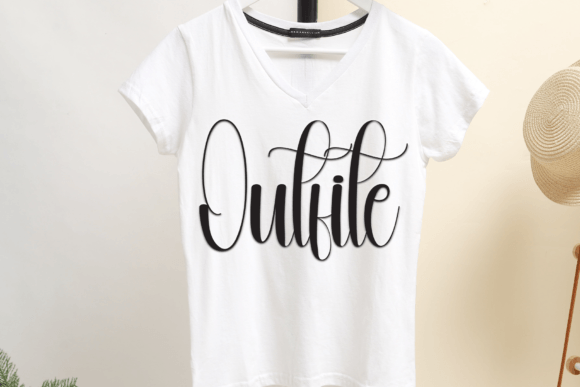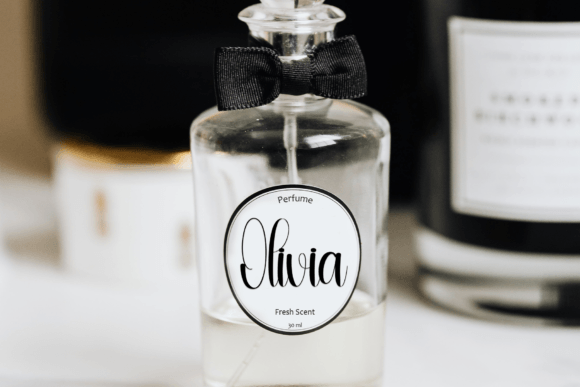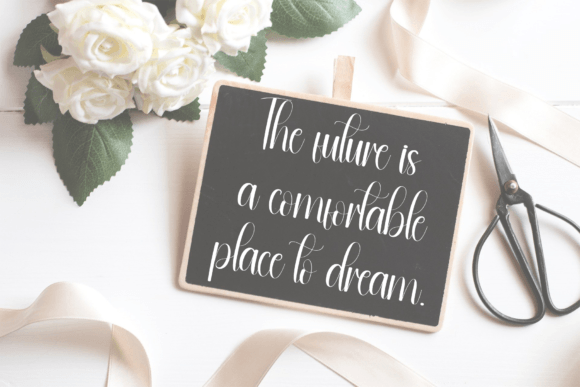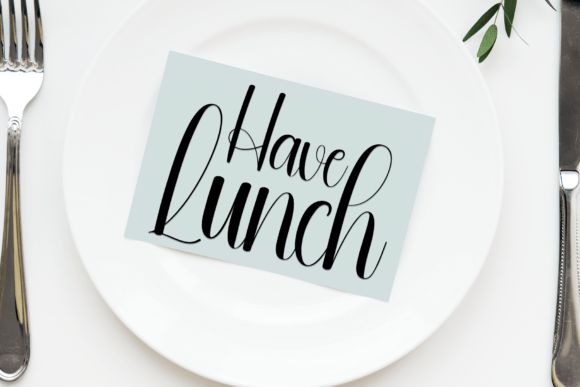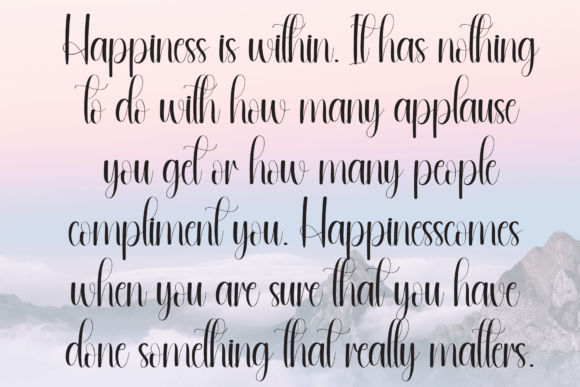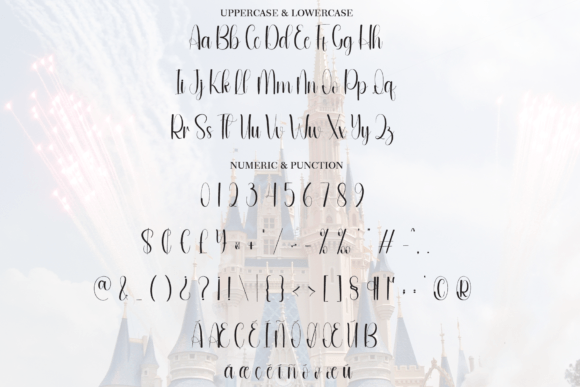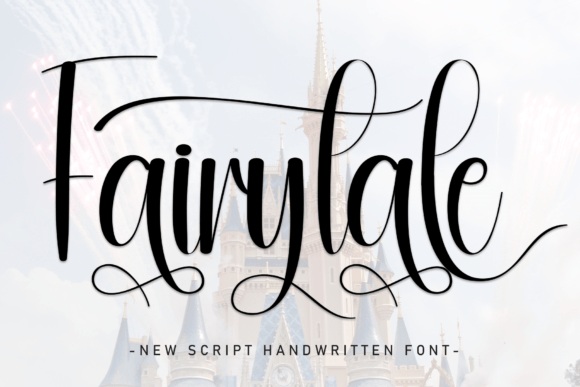
Introducing Fairytale Font: The Sweet and Friendly Handwritten Font for Your Design Needs
Are you a designer or crafter looking for a font that can add a touch of magic to your creations? Look no further than Fairytale Font, a sweet and friendly handwritten font that’s perfect for a variety of design projects. In this article, we’ll take a closer look at Fairytale Font, its features, and how you can use it to elevate your designs.
What is Fairytale Font?
Fairytale Font is a beautiful, handwritten font that’s designed to bring a sense of whimsy and wonder to your designs. It’s a fresh and casual font that’s ideal for writing wedding invitations, cards, or any other design that might need a lovely touch. With its elegant and flowing script, Fairytale Font is sure to capture the hearts of your audience and leave a lasting impression.
Key Features of Fairytale Font
So, what makes Fairytale Font so special? Here are some of its key features:
• Sweet and Friendly Design: Fairytale Font has a sweet and friendly design that’s perfect for creating designs that are approachable and inviting.
• Handwritten Style: This font has a beautiful, handwritten style that’s perfect for adding a personal touch to your designs.
• Fresh and Casual: Fairytale Font is a fresh and casual font that’s ideal for designs that need a playful and relaxed feel.
• Highly Readable: Despite its elegant and flowing script, Fairytale Font is highly readable, making it perfect for body text and headings.
Use Cases for Fairytale Font
So, how can you use Fairytale Font in your designs? Here are some use cases to get you started:
• Wedding Invitations: Fairytale Font is perfect for writing beautiful and elegant wedding invitations that set the tone for a special day.
• Greeting Cards: This font is ideal for creating greeting cards for special occasions, such as birthdays, anniversaries, and holidays.
• Branding and Packaging: Fairytale Font can be used to create beautiful and eye-catching branding and packaging designs that stand out from the crowd.
• Social Media Graphics: This font is perfect for creating social media graphics, such as quotes, posters, and flyers, that need a touch of elegance and sophistication.
Tips for Using Fairytale Font
Here are some tips for using Fairytale Font in your designs:
• Pair it with Other Fonts: Fairytale Font looks great when paired with other fonts, such as sans-serif fonts, to create a beautiful contrast.
• Use it for Headings and Titles: This font is perfect for headings and titles, where you want to make a bold and elegant statement.
• Experiment with Colors: Fairytale Font looks great in a variety of colors, so don’t be afraid to experiment and find the perfect color scheme for your design.
In conclusion, Fairytale Font is a beautiful and versatile handwritten font that’s perfect for designers and crafters who want to add a touch of magic to their creations. With its sweet and friendly design, fresh and casual style, and highly readable script, Fairytale Font is ideal for a variety of design projects, from wedding invitations to social media graphics. So why not give it a try and see how it can elevate your designs?